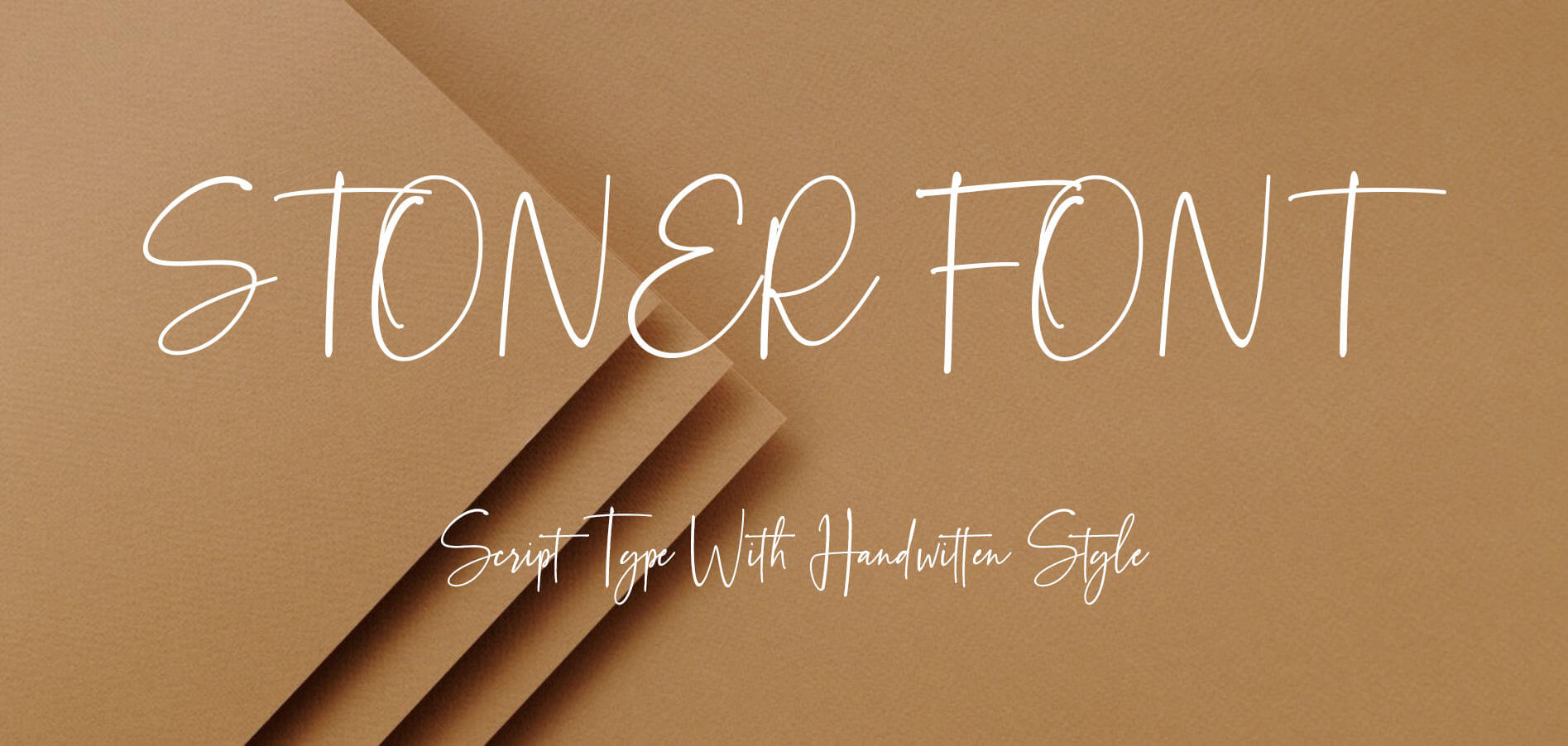
Stoner Font Family is an extraordinary typeface that is a member of the script typeface family. The name of the font is Stoner font that was designed by Fikry Alif and was published through Fikryal Studio.
It has amazing 230 unique glyphs and 268 interesting characters that are perfect for any stylish design and text design. If you need a slim look to your design then use this typeface with the pairing of Garamond font.
Stoner Font Family
NameStoner Font
DesignerFikry Alif
StyleScript